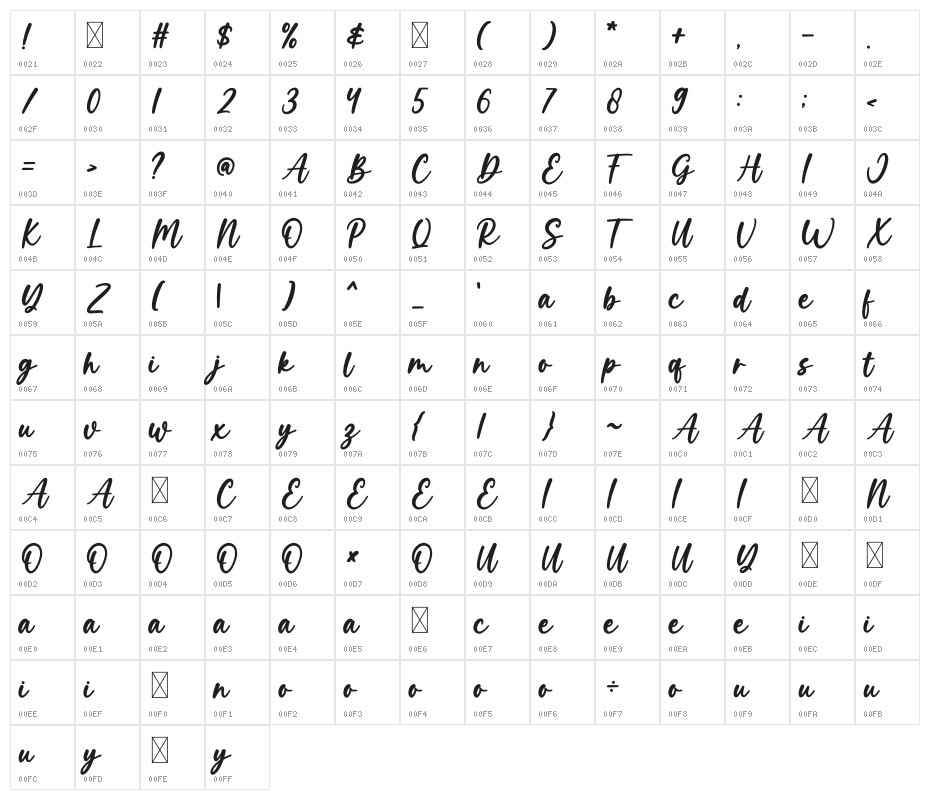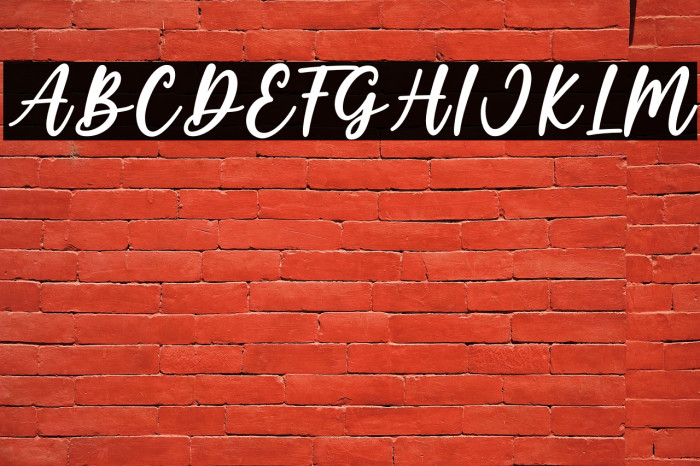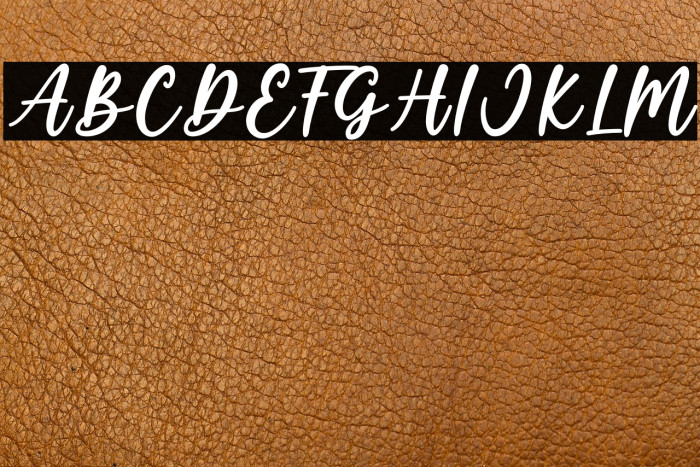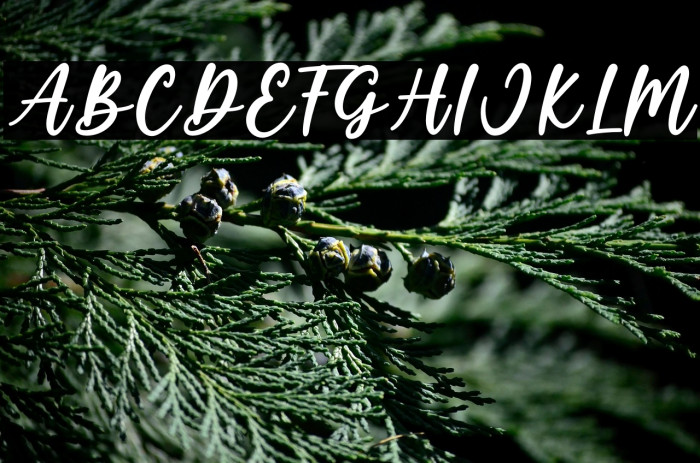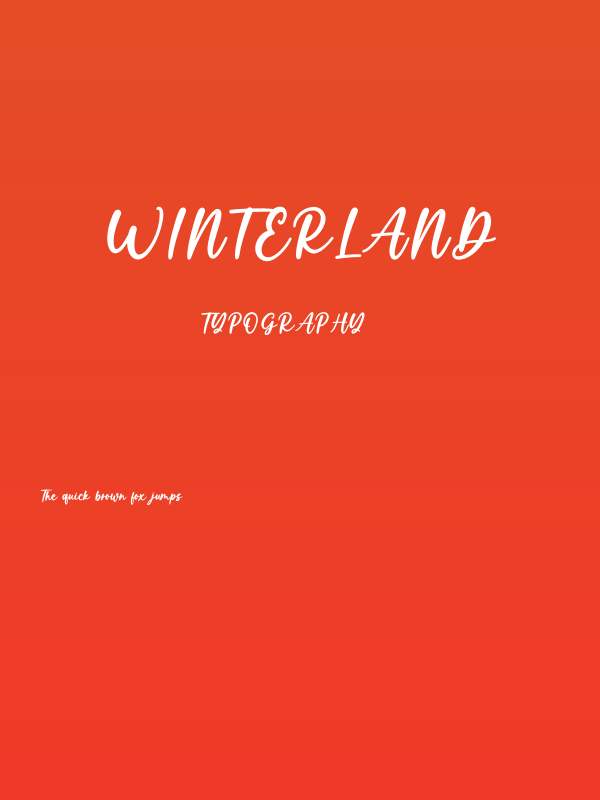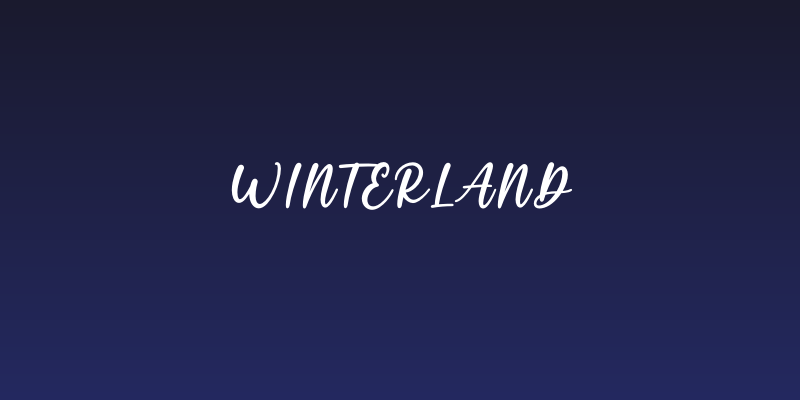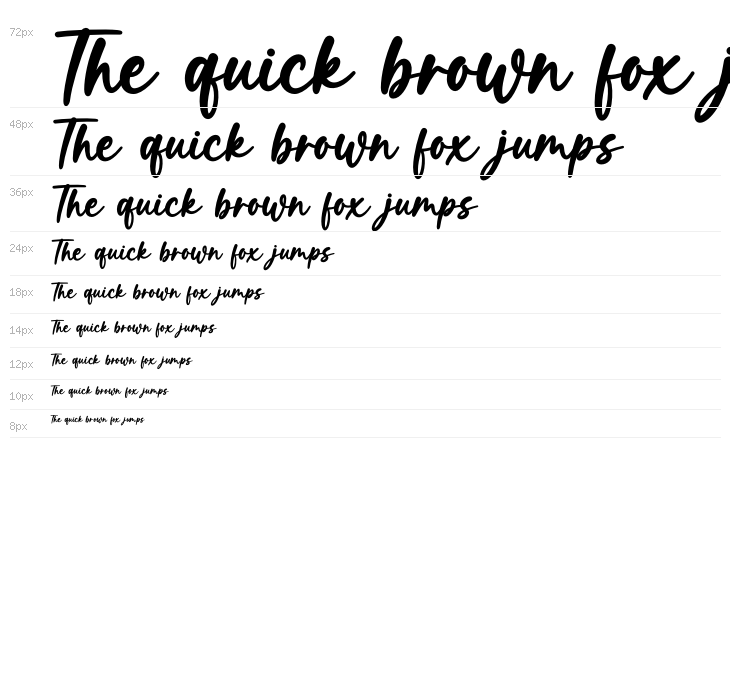
Winterland Font
Winterland Description
This font exudes a playful and energetic vibe with its handwritten script style. The letters are fluid and connected, giving a sense of movement and dynamism. The uppercase letters maintain a consistent height, while the lowercase letters have a slight slant, adding to the casual and informal feel. The numbers are clear and legible, matching the overall style of the alphabet. Special characters are creatively designed, maintaining the cohesive look of the font. The strokes are smooth and rounded, contributing to its friendly and approachable appearance.
| Proposed Projects | Ideal for greeting cards, invitations, branding, and social media graphics. |